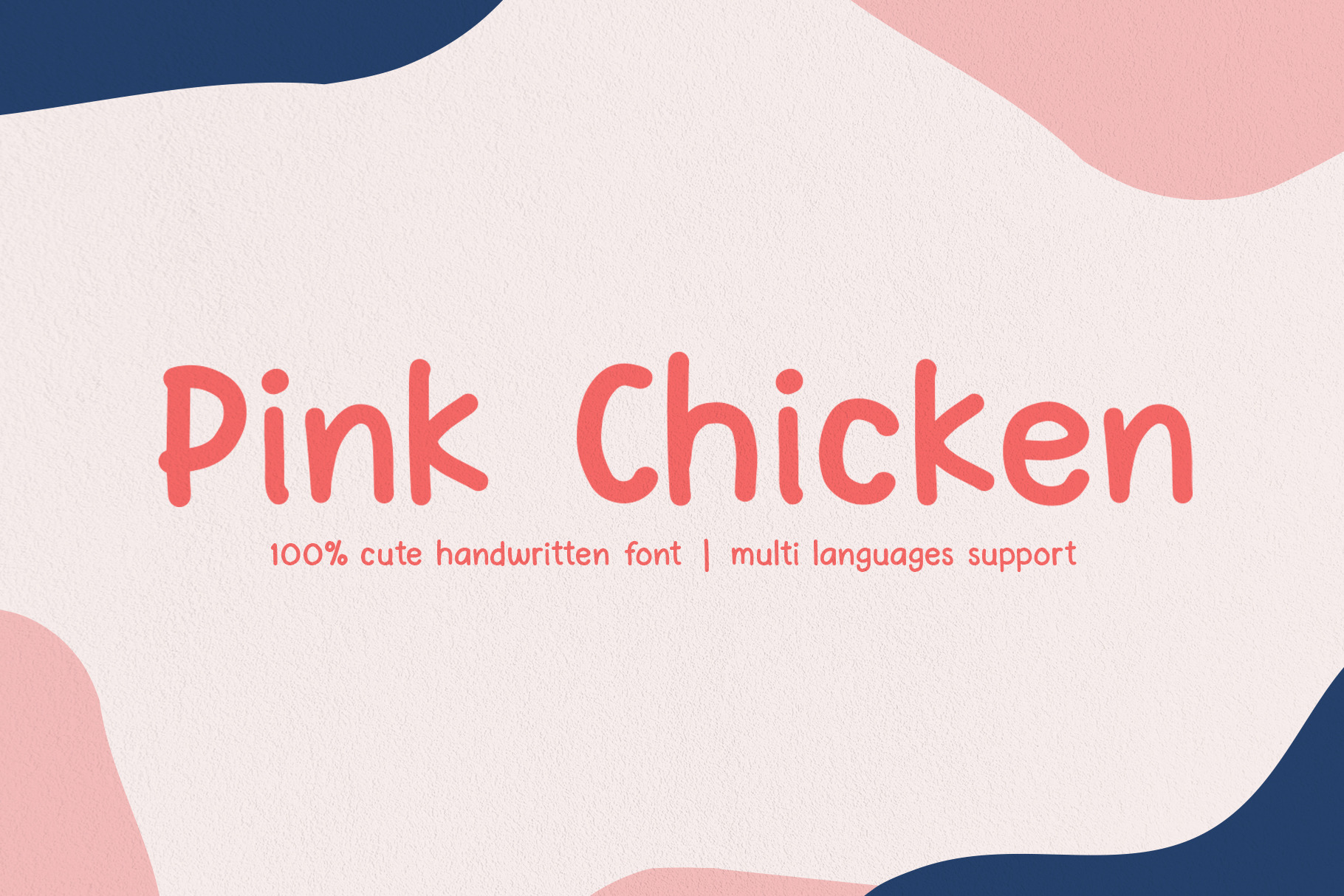
Pink Chicken Font
Pink Chicken is a cute handwritten font, this font is complete with all punctuation and multi-languages support. Pink chicken has an authentic casual shape and looks like a natural kid handwritten so this design will apply to the casual and fun design. This font will be perfect when you using for posters, name cards, books, comics, presentations, or packaging designs. Enjoy this font, it also supports with multi-languages.